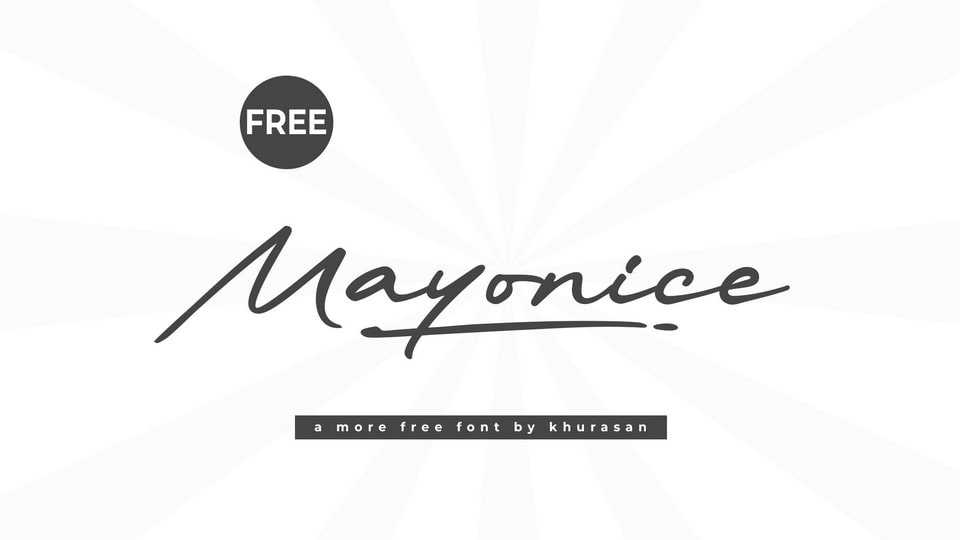
Download Mayonice font, a casual handwritten typeface that captures the fluidity and spontaneity of quick ink strokes with its dynamic, free-flowing letterforms.